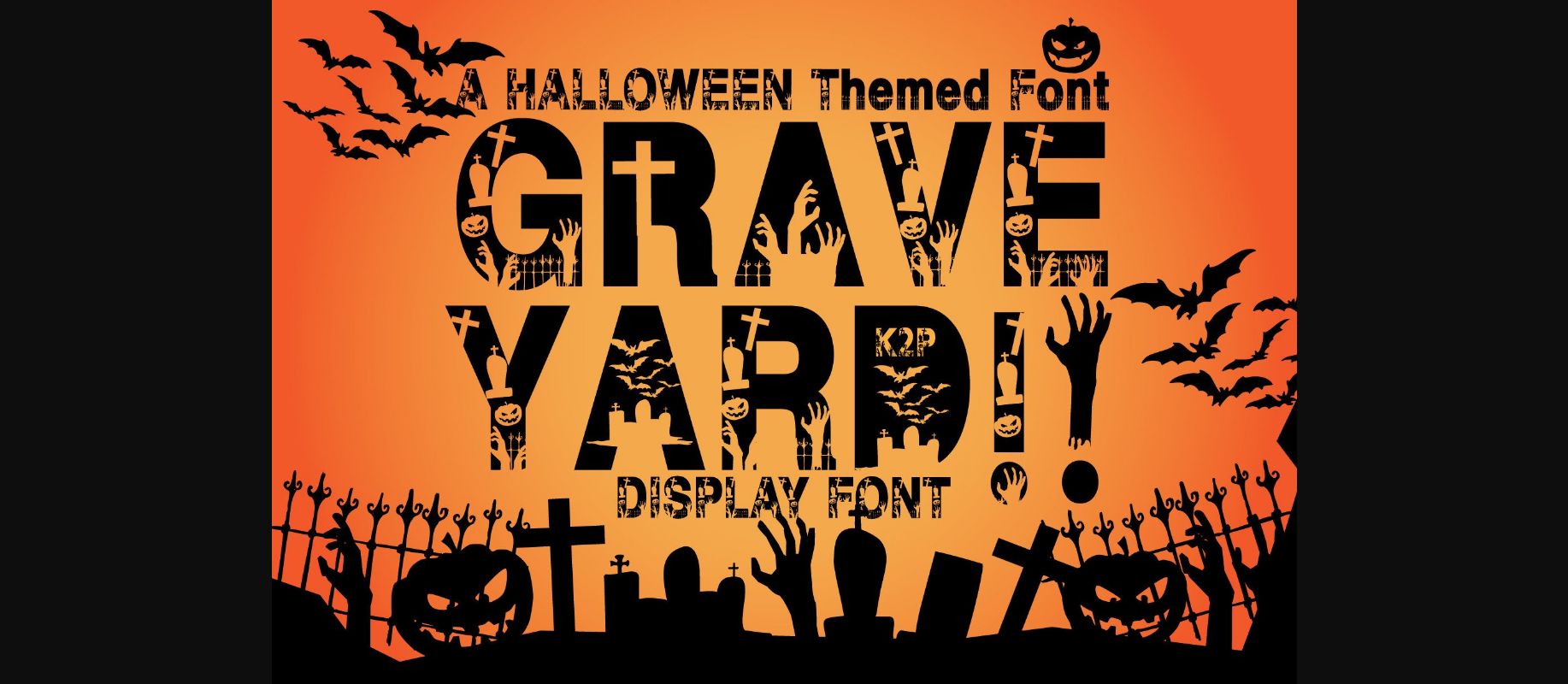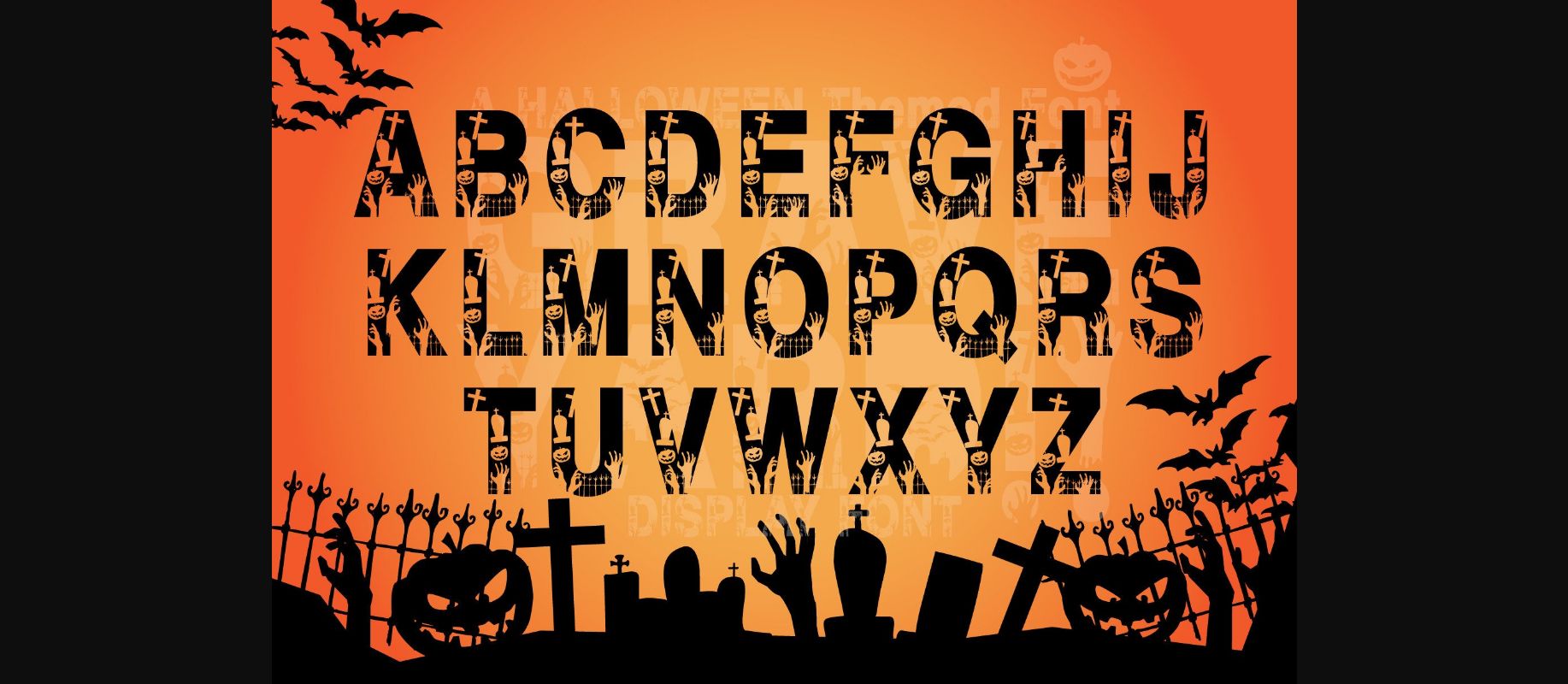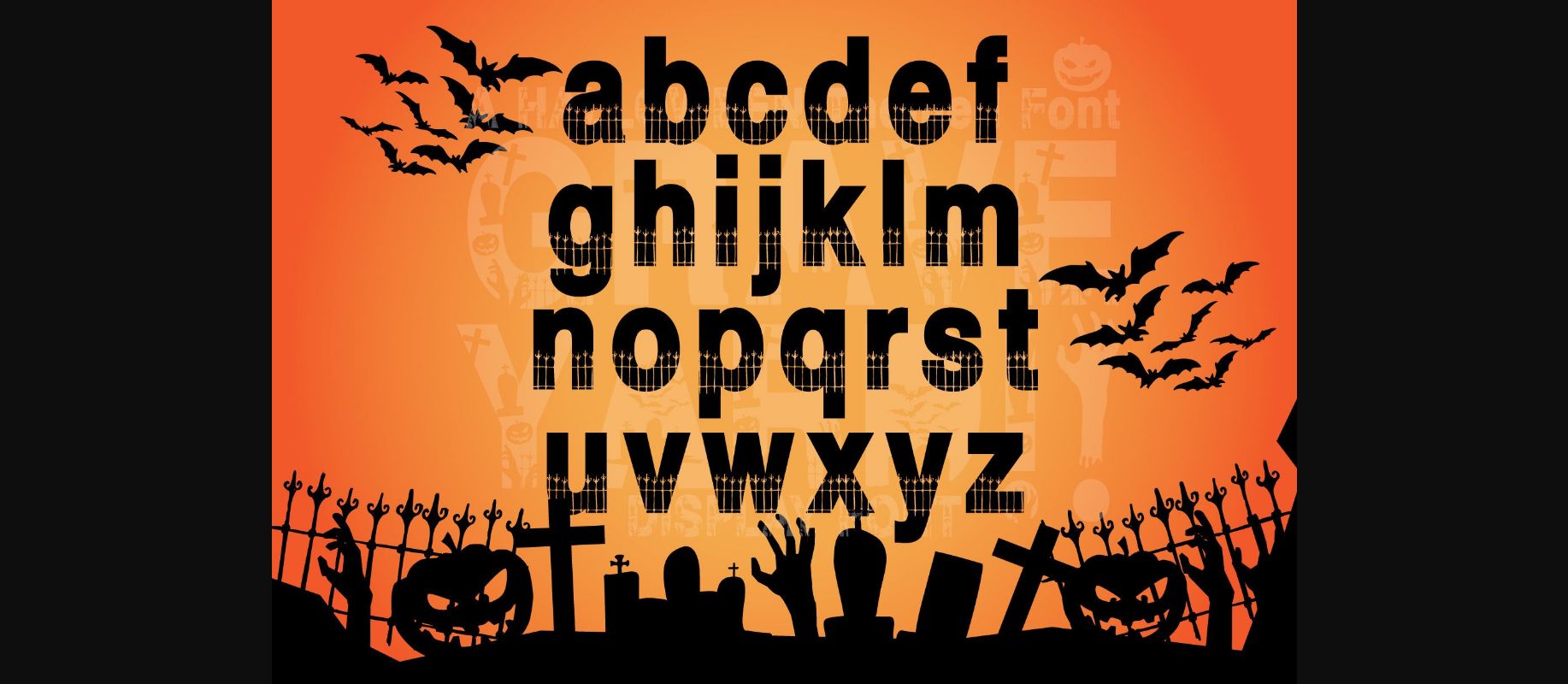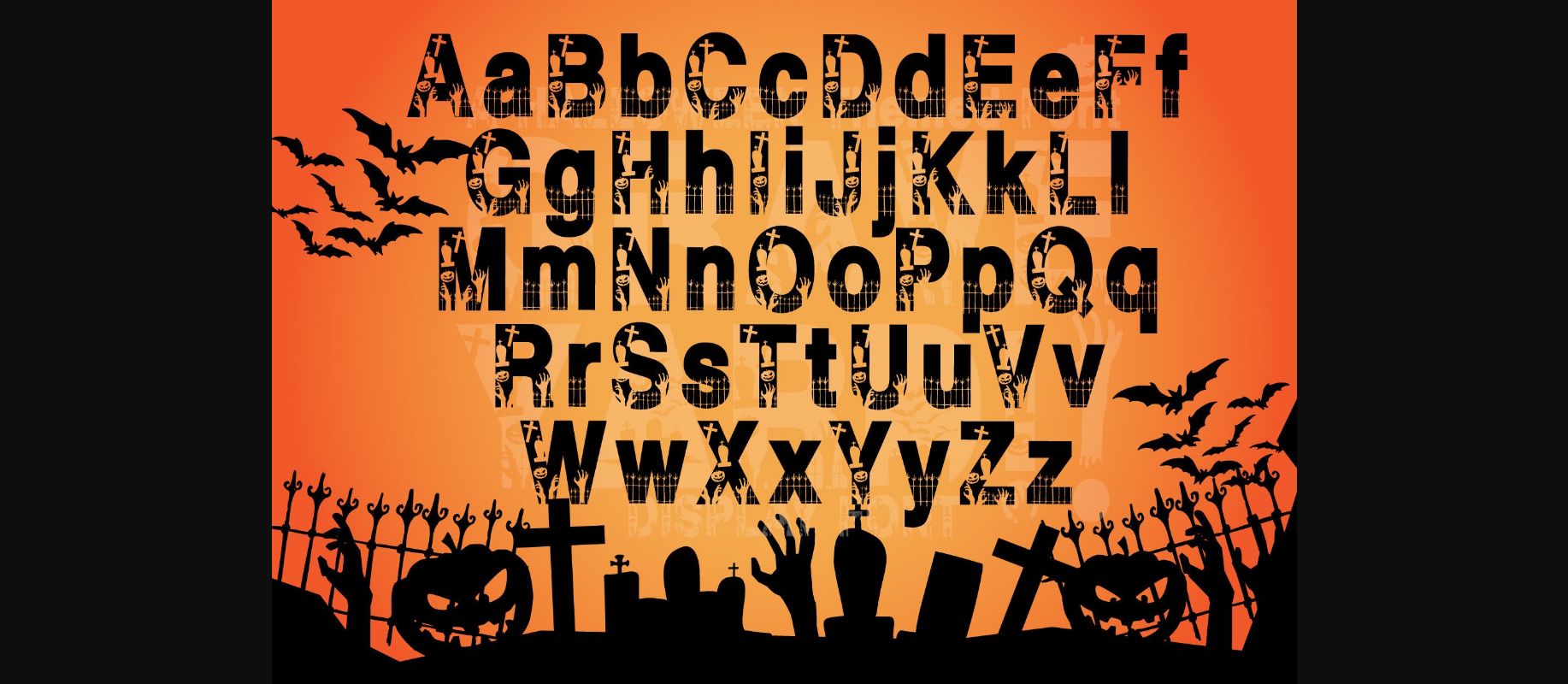
About Graveyard Font
Graveyard is a thick-lettered and spooky decorative font. It is perfectly suitable for any Halloween-related project or crafty idea! The only limit is your imagination. This font is PUA encoded, which means you can access all of the glyphs and swashes with ease!